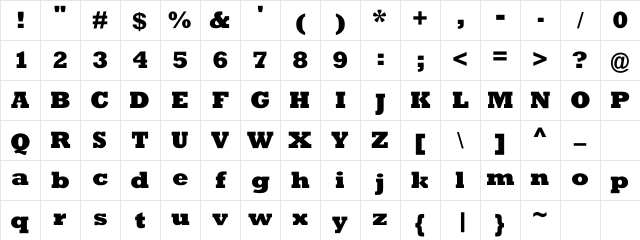
MemRockwell ExtraBold
MemRockwell Family
Design Context for MemRockwell
MemRockwell is a composed and adaptable typeface that performs quietly and consistently across a wide range of design contexts. Its bold stroke weight gives it real presence on the page.